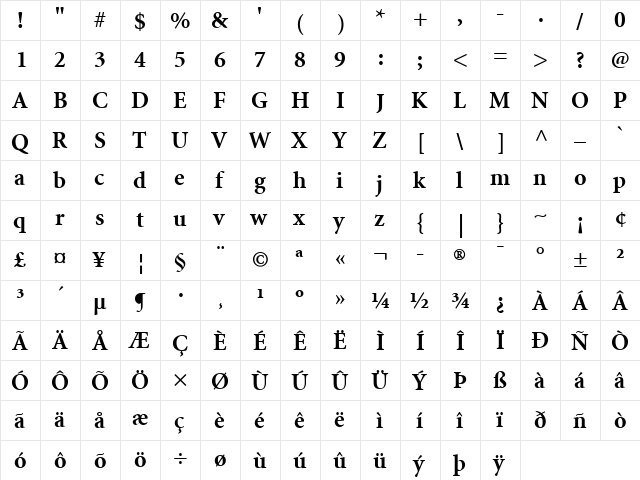
Minion LT Bold Regular
Design Context for Minion LT Bold Typeface
Minion LT Bold takes a measured approach to typography — its balanced proportions and neutral character make it a reliable workhorse for both digital and print work. The heavy weight commands attention and anchors typographic hierarchies.